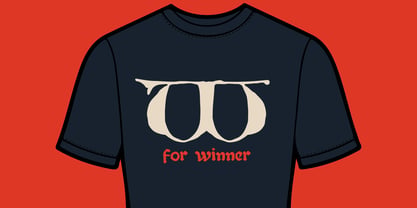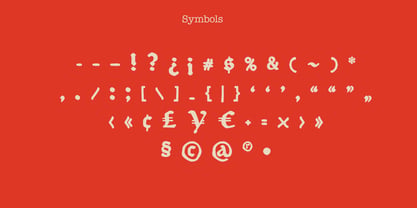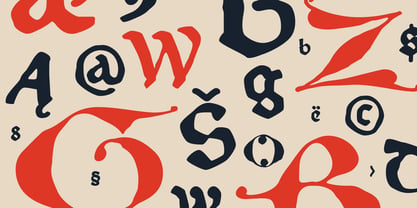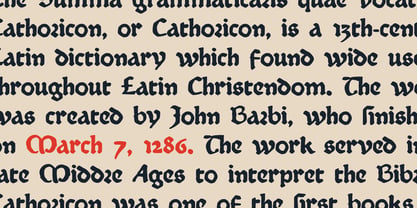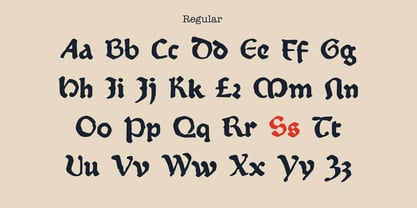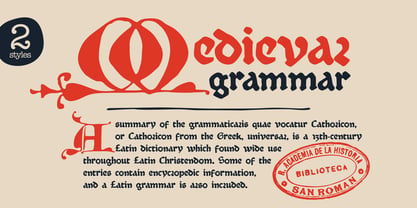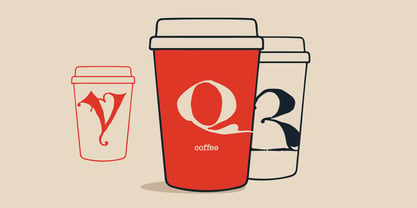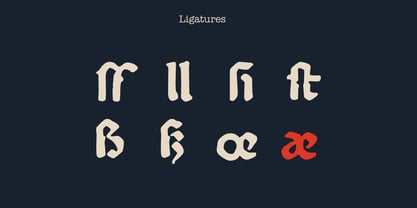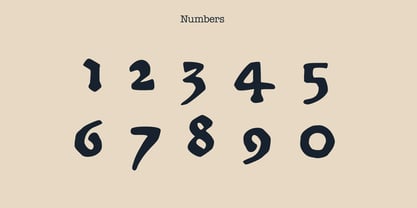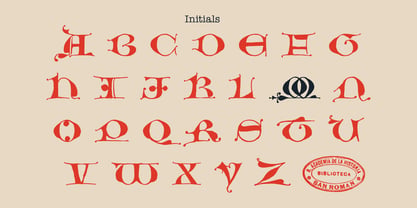
Medieval Grammar
The Medieval Grammar Font Family was designed by Roman Korolev and published by Kaer. Medieval Grammar contains 2 styles and family package options. More about this family
This font family based on Medieval book called Summa Grammaticalis, better known as the Catholicon by Johannes Balbus. It’s holdings by Spanish Royal Academy of History. I manually redesign initials and regular style fonts from this folio. Also, I’ve added some modern symbols. I'm happy to present to you my new font family. Blumen font family has Initials and Regular styles. It's all you need to precisely imitate medieval style text. Use Initials style as a decorative element at the beginning of a paragraph or section, other part of the paragraph should be in Regular style. You’ll get: Initials & Regular styles Uppercase and lowercase Multilingual support Numbers Symbols Punctuation Ligatures Best, Roman.